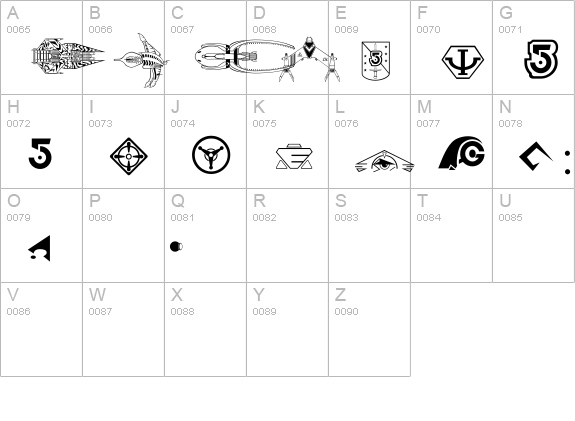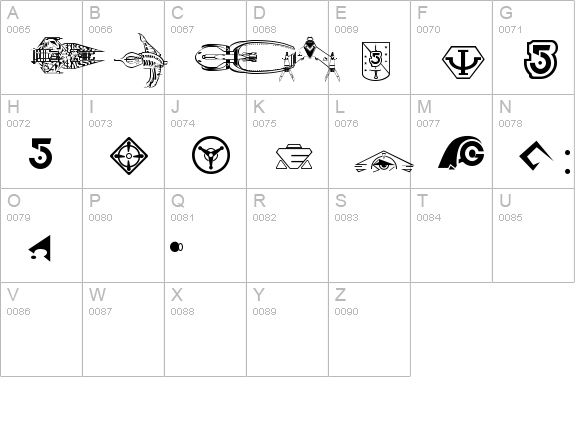
B5wingdings Font Details
Introducing B5wingdings font, a captivating and unique typeface that will add a touch of creativity and playfulness to your design projects. With its intricate and elaborate symbols, B5wingdings font is perfect for adding a sense of mystery and intrigue to any design. This font features a wide range of symbols, each carefully crafted to bring your designs to life. From whimsical doodles to intricate patterns, B5wingdings font offers endless possibilities for expressing your creativity. Whether you're designing a logo, creating a poster, or crafting a digital illustration, this font will surely make your work stand out. The best part? B5wingdings font is available for free! That's right, you can freely download this font from FontsMarket.com and start using it in your projects right away. No need to worry about breaking the bank or compromising on quality – B5wingdings font offers the perfect combination of affordability and excellence. Not only is B5wingdings font aesthetically pleasing, but it is also incredibly versatile. Its wide range of symbols allows you to experiment and create unique designs that truly reflect your style. Whether you're aiming for a fun and playful look or a more sophisticated and intricate design, B5wingdings font has got you covered. So why wait? Download B5wingdings font today from FontsMarket.com and unleash your creativity. With its captivating symbols and effortless charm, this font is sure to become a valuable asset in your design toolkit. Experience the freedom of expression and let B5wingdings font elevate your designs to new heights.